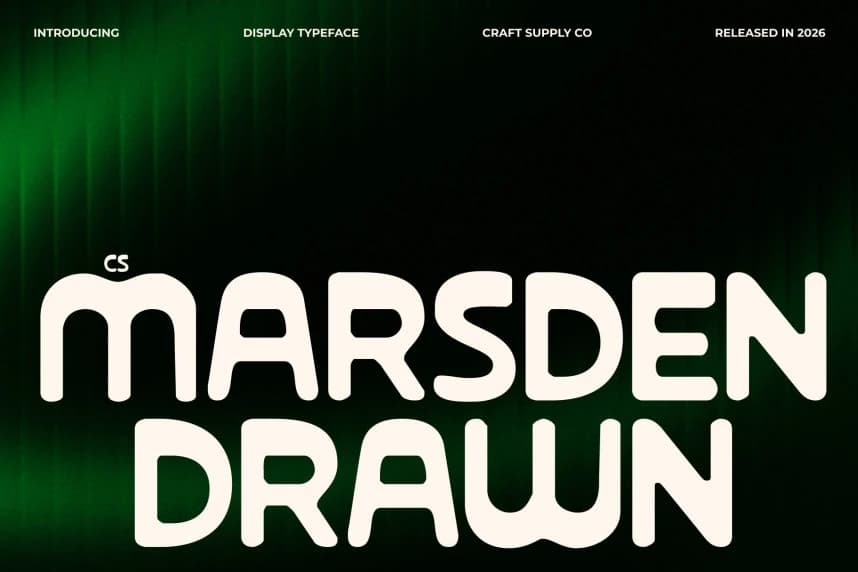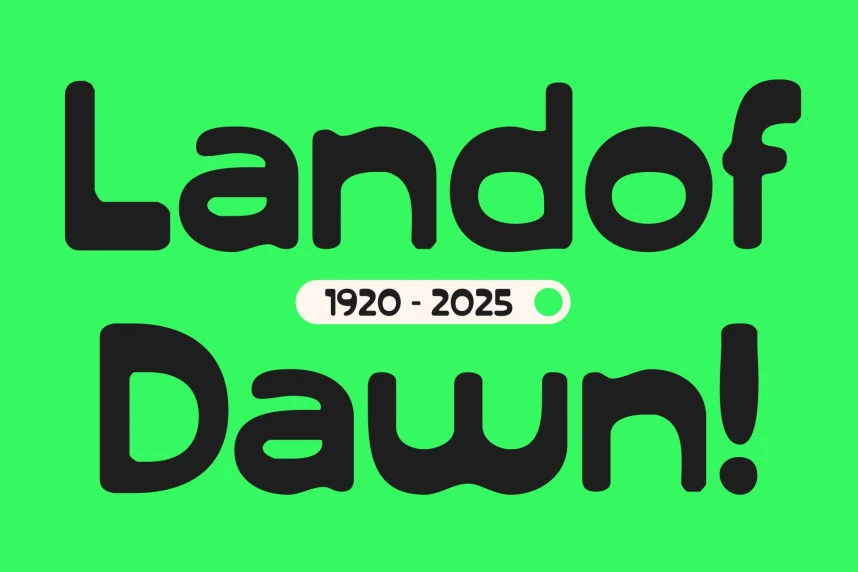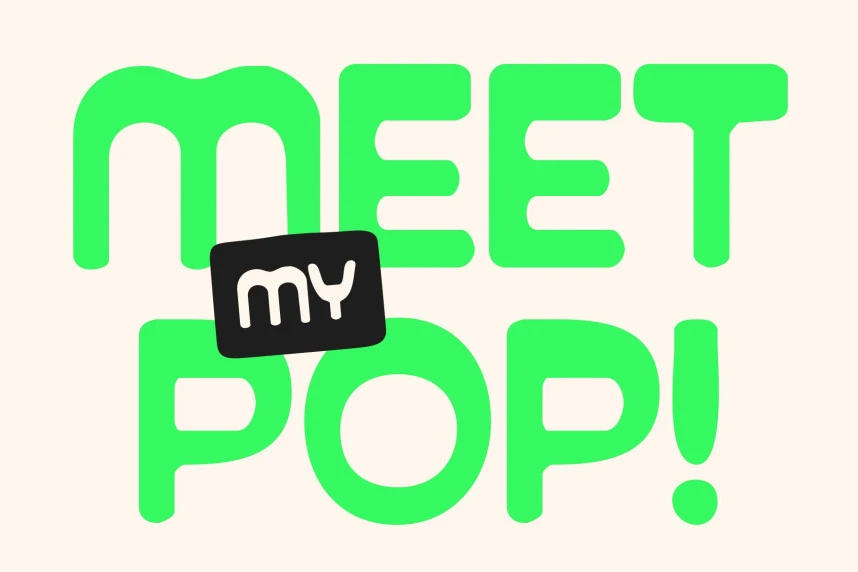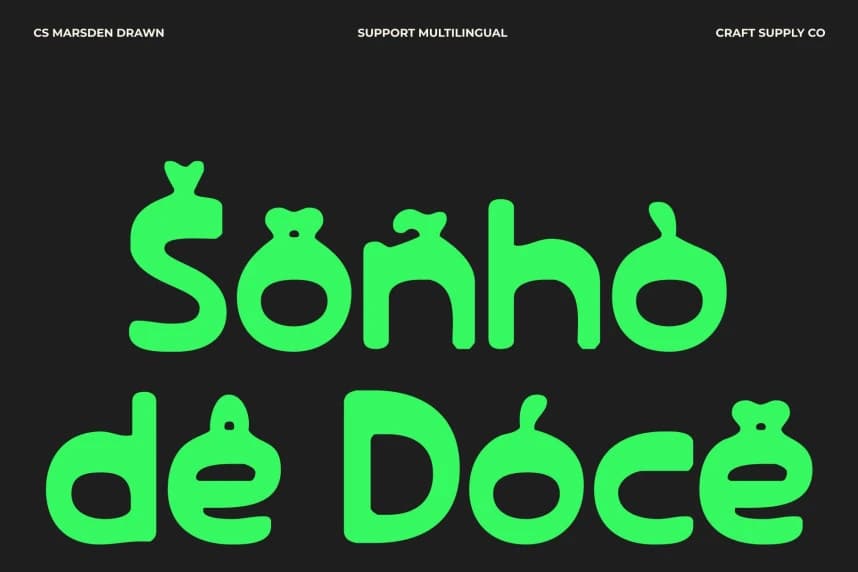
CS Marsden Drawn Font
CS Marsden Drawn Font – Bold Reverse Contrast with Modern Flair Reverse Contrast Sans Serif with Distinctive Style. This is a modern reverse-contrast sans-serif display font that commands attention through its bold forms and distinctive modular construction.